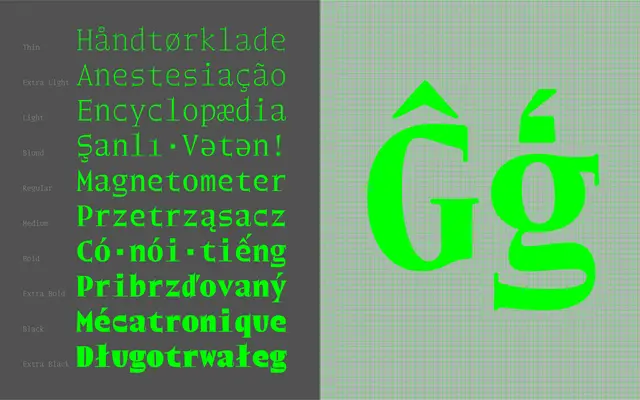
NaN Weiss
NaN · Luke Prowse · 2019
A monospace revival of Emil Rudolf Weiß' Weiss-Kapitale Kräftig by Luke Prowse, forcing a humanist calligraphic hand into the cold regularity of a fixed-width grid.
Designed by Luke Prowse between 2019 and 2020, NaN Weiss transplants the scriptural warmth of Weiß' early twentieth-century lettering into the metronomic constraints of a monospace. The collision produces something genuinely strange: letterforms that carry religious and humanist associations yet sit locked to a mechanical grid, described by NaN as an alien almost successfully pretending to be human. Ten weights from Thin to Extra Black give the family unusual expressive range for a fixed-width typeface, covering 219 Latin-based languages.
A fixed-width typeface derived from Emil Rudolf Weiß' calligraphic Weiss-Kapitale Kräftig; the monospace constraint places it firmly in the mono category, while its scriptural, humanist origins distinguish it from geometric or technical monospaces.